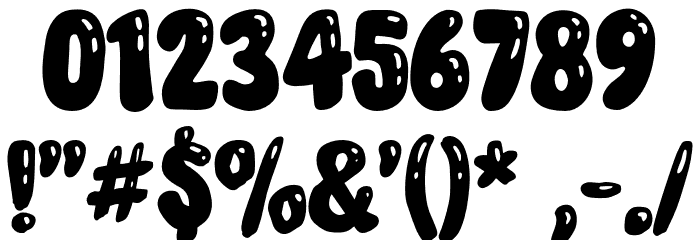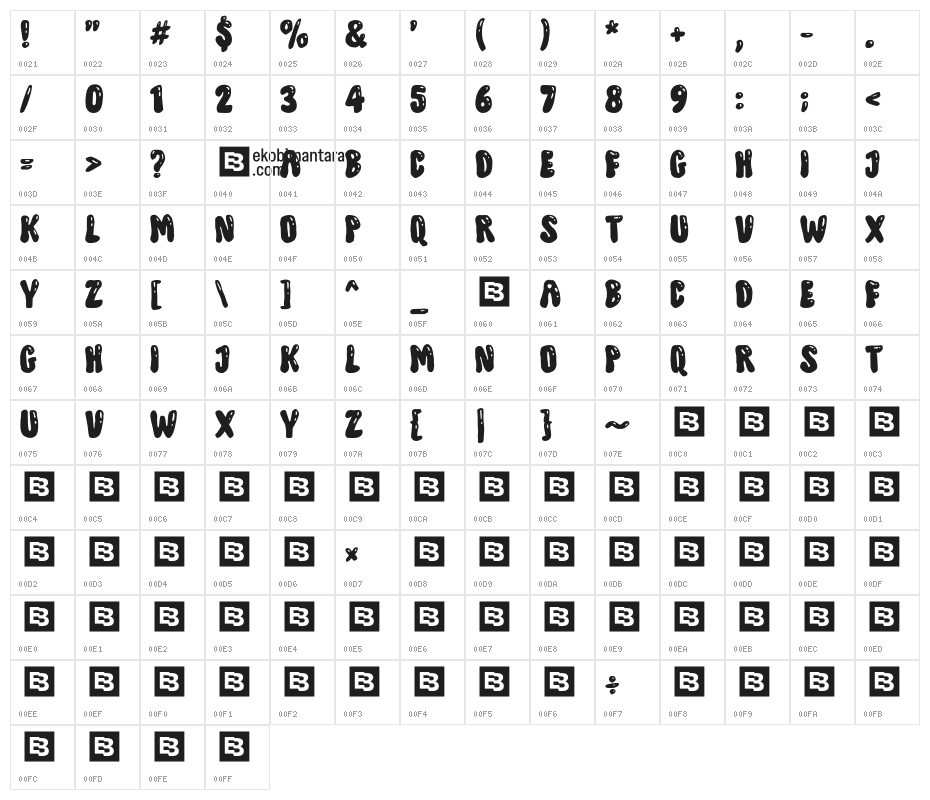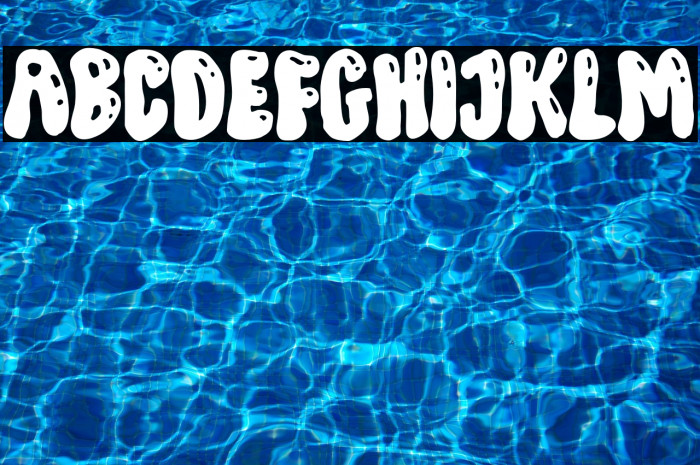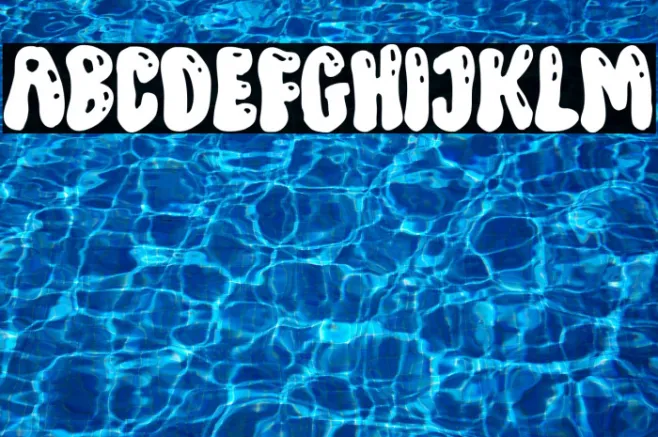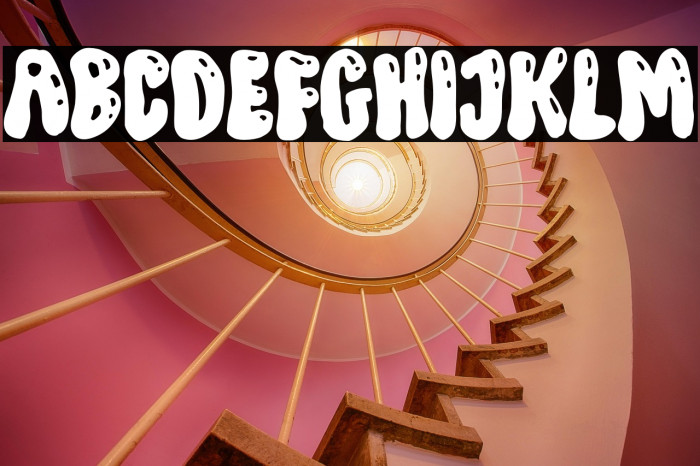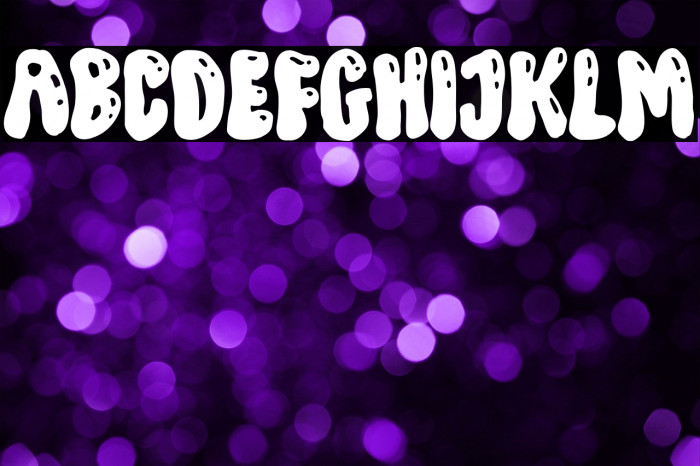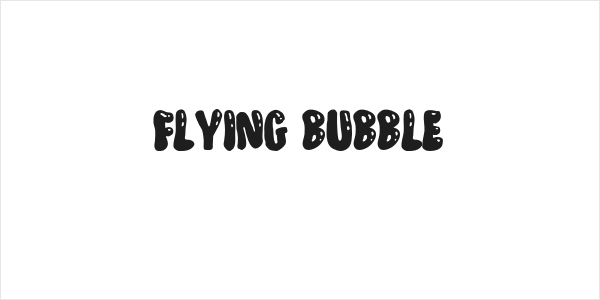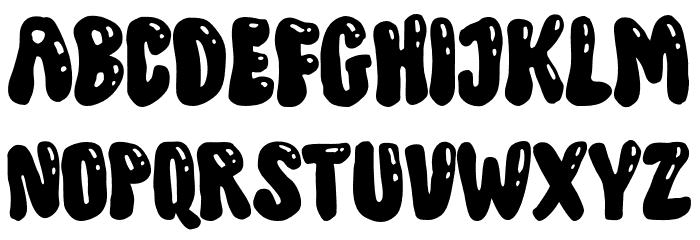
Flying Bubble Font
Flying Bubble Description
This playful and whimsical font features bold, rounded characters with a bubbly appearance. Each letter is characterized by its thick, smooth curves and occasional bubble-like accents, giving it a lively and dynamic feel. The font maintains a consistent weight throughout, ensuring readability while adding a touch of fun and creativity. Its unique style makes it stand out, perfect for projects that require a lighthearted and engaging visual element. The numbers and special characters follow the same design principles, ensuring a cohesive look across all elements.